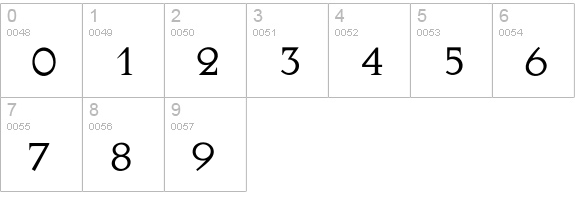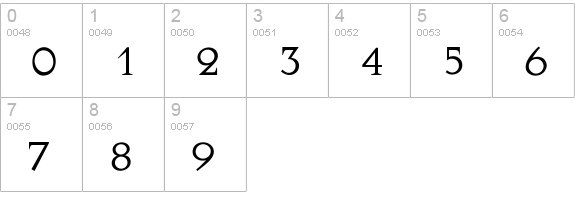
Octavian Font Details
Octavian font is a stunning and elegant typeface that exudes a sense of sophistication and creativity. With its clean lines and modern aesthetic, this versatile font is perfect for a wide range of design projects, from branding to editorial design. The sleek and stylish letterforms of Octavian font make it a standout choice for any designer looking to add a touch of class to their work. What makes Octavian font even more appealing is that it is available for free download at FontsMarket.com. This means that you can easily access this beautiful typeface and use it in your projects without having to worry about any additional costs. Whether you're working on a personal project or a client's design, Octavian font is sure to elevate your work to the next level. Download it today and see for yourself the impact this stunning font can have on your designs.